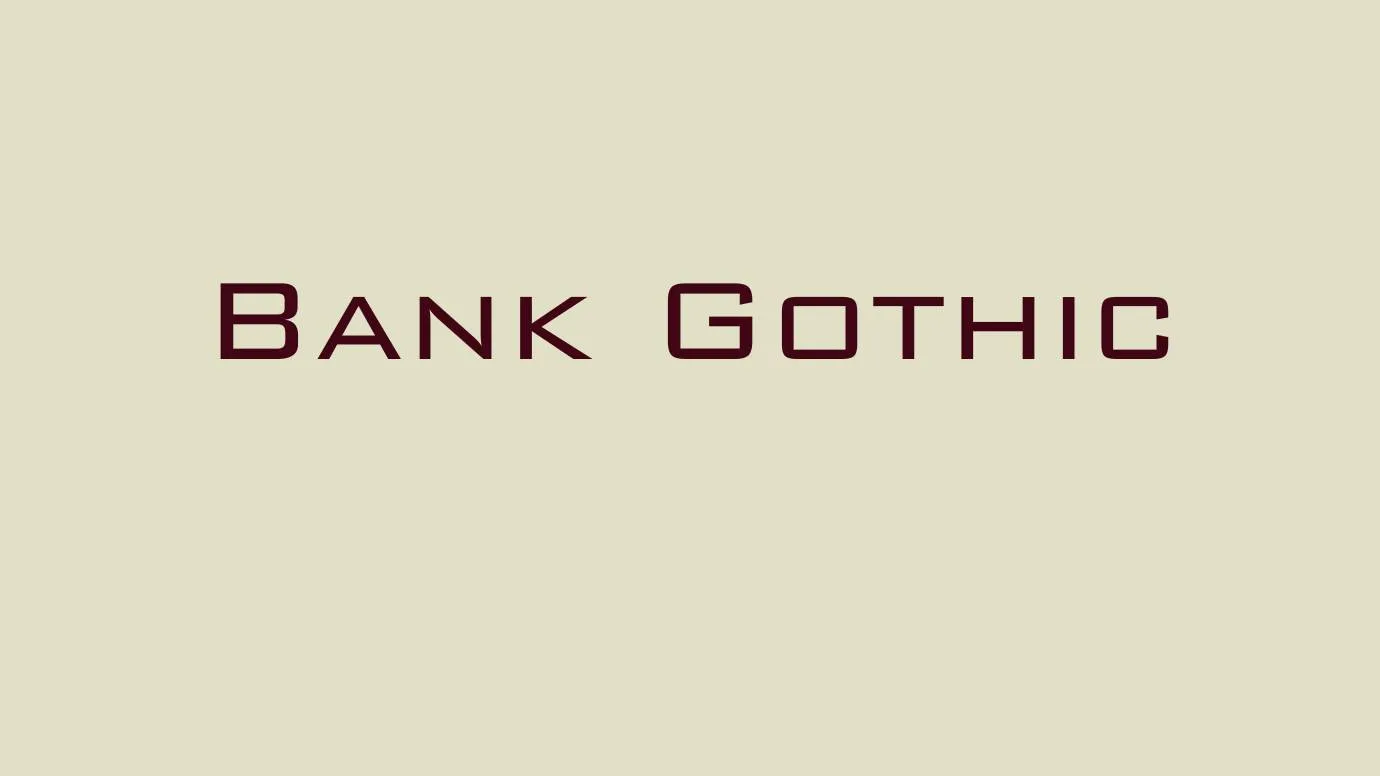
Bank Gothic Font Family is a great geometric sans-serif typeface that is the design of the famous font designer Morris Fuller Benton. This font was released by American Type Founders and released in 1930.
The medium weight of this font typeface is mostly used and the bold styling of this typeface works great with the combination of libre baskerville font and this font features the small caps letters.
Bank Gothic Font Family
TypeGeometric
DesignerMorris Fuller Benton